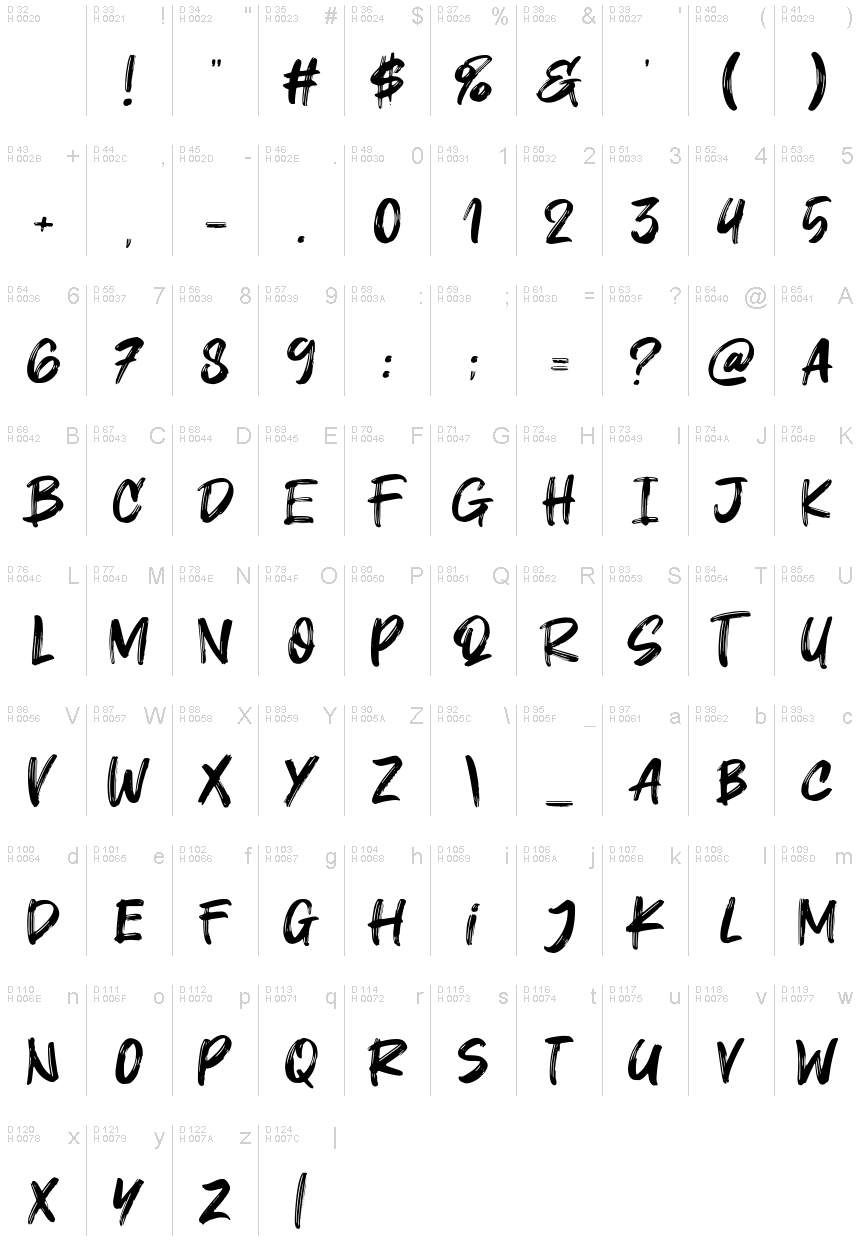
Voice of Truth is a captivating brush font designed by Khurasan, radiating authenticity and creativity. Its bold strokes exude a spirited dynamism, making each letter appear as though it has been carefully painted with expressive vigor. The exaggerated forms convey a sense of movement and fluidity, effortlessly drawing attention.
This font’s distinctive character makes it perfect for various design contexts, from artistic posters to impactful logos and vibrant marketing materials. The balanced interplay between its robust presence and playful style invites viewers to engage, making it an excellent choice for projects that seek to communicate passion and individuality. Whether used in print or digital formats, Voice of Truth stands as a testament to the power of visual storytelling.
Voice of Truth